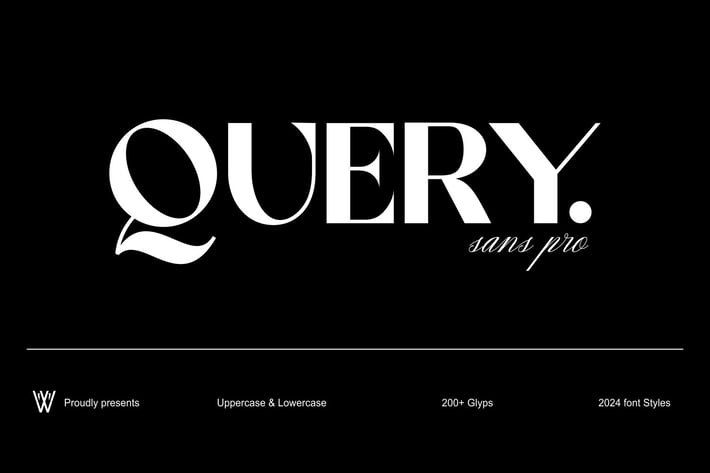
Query Font Family: Elegant & Versatile Typeface
Enhance Your Designs with Query: The Sophisticated and Versatile Font Family
Elevate your design projects with Query, a font family that seamlessly combines elegance and functionality. With a complete set of uppercase and lowercase characters and over 200 unique glyphs, Query offers endless creative possibilities. Featuring 2024 distinctive font styles, this versatile typeface is ideal for crafting stunning headers, memorable logos, and refined typography.
→ Elegant Design: Perfect for branding, advertising, editorial, and digital design, Query’s clean lines and contemporary aesthetic make it a standout choice.
→ Versatile Application: Ideal for designers, marketers, and typography enthusiasts, Query enhances any creative project with its wide range of styles and refined look.
→ Complete Character Set: Includes a full set of uppercase and lowercase letters, plus 200+ unique glyphs for maximum design flexibility.
Whether you're working on branding, advertising, or digital content, Query is the perfect tool to add sophistication and style to your work. Choose Query for a refined and contemporary design experience.